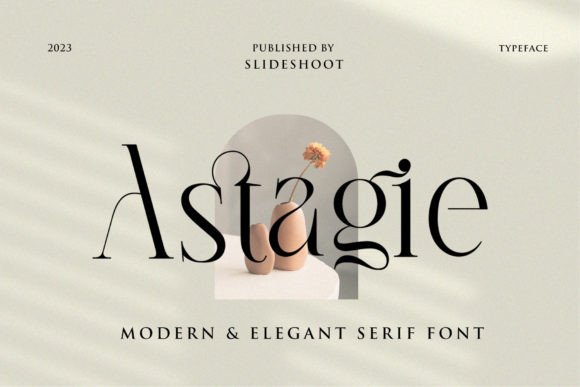
Introducing Astagie Font, the epitome of sophistication and luxury! This gorgeous serif font, created by Slide Shoot, is a must-have for anyone looking to add a touch of elegance to their designs.
Astagie Font's delicate curves and sharp edges come together to create a stunning and eye-catching look. With its exquisite style, this font is perfect for everything from wedding invitations to product packaging.
What's more, Astagie Font is PUA encoded, meaning you can easily access all glyphs and swashes without any hassle. This feature ensures that your designs will look flawless and effortless, with just the right amount of charm and class.
Whether you're a professional designer or someone looking to elevate their personal projects, Astagie Font is the perfect choice. Its versatility and uniqueness make it stand out from other serif fonts, allowing you to create stunning visuals that capture your audience's attention.